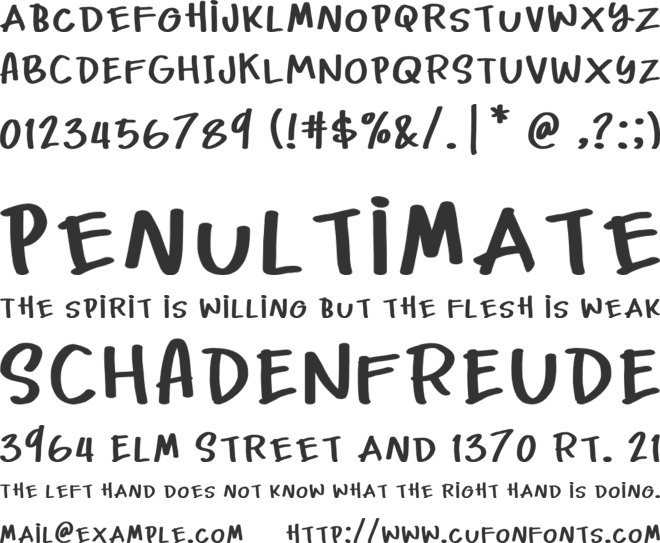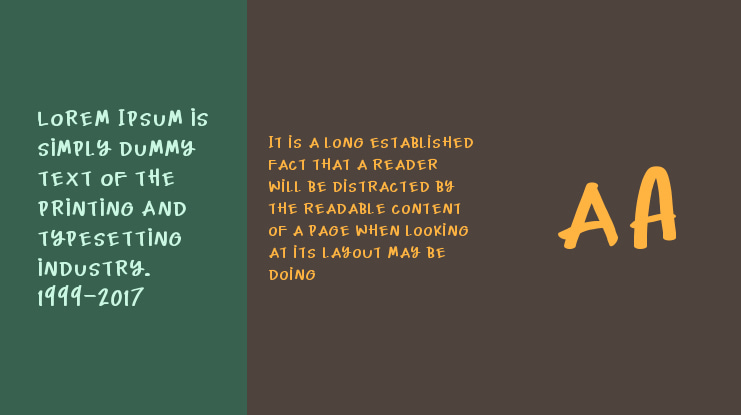
Chocky Font
Introducing Chocky | a Playful Font. It comes with a Font Regular which is perfect to make any design. This font is perfect for branding, magazines, quotes, Games, invites, business cards, posters, and more.
Uppercase Lowercase Numerals & Punctuations Suitable for T-Shirt Logotypes, Signs, Headlines, Posters, Letterhead and many more. This font is for PERSONAL USE only.
Chocky a playful Font